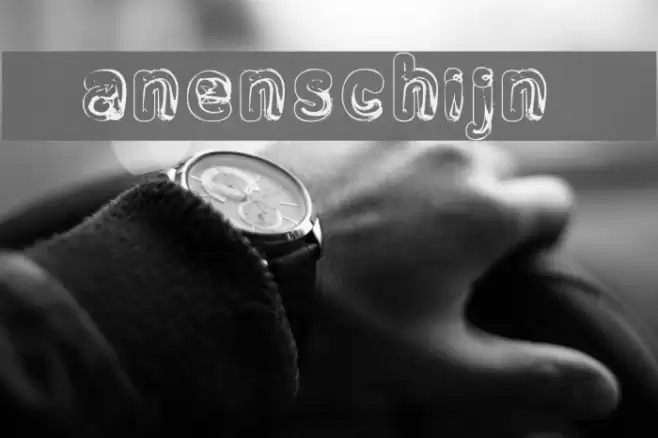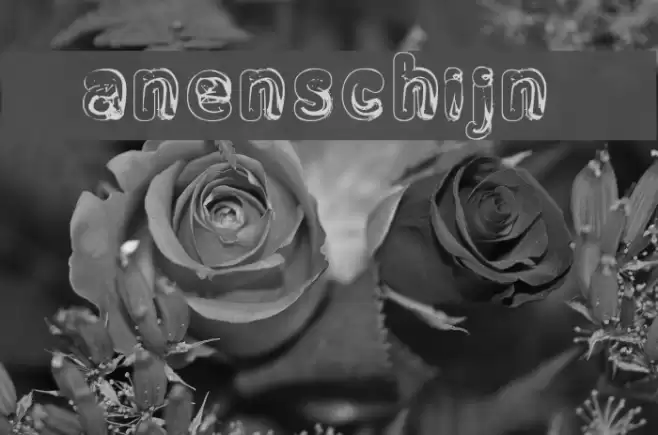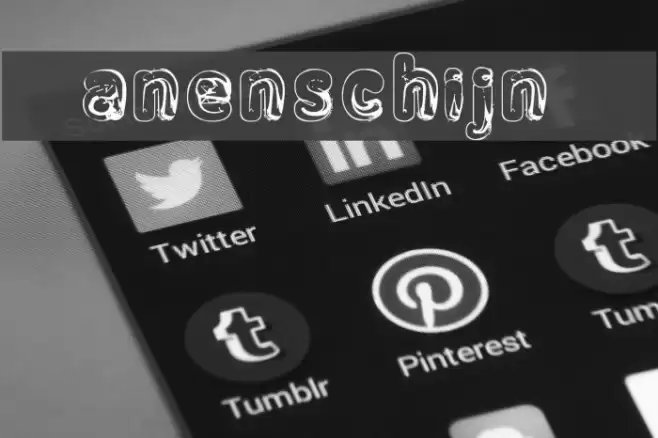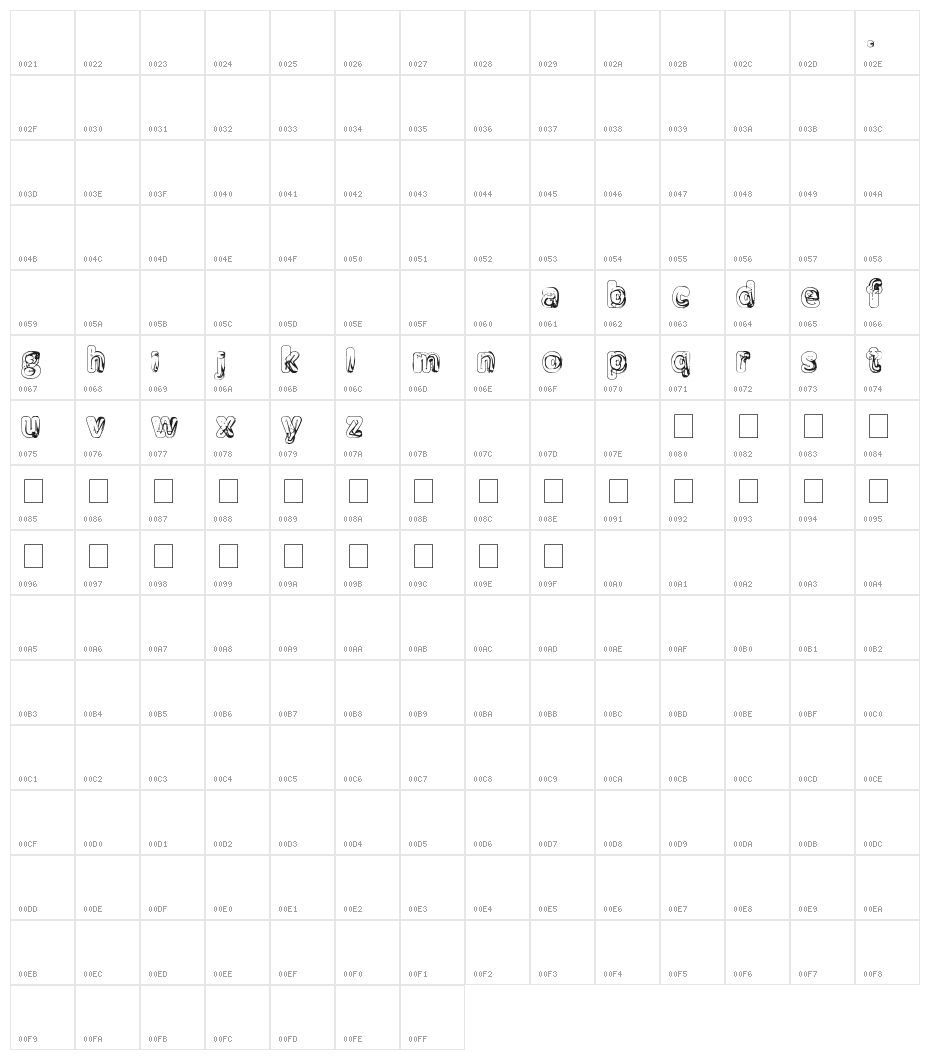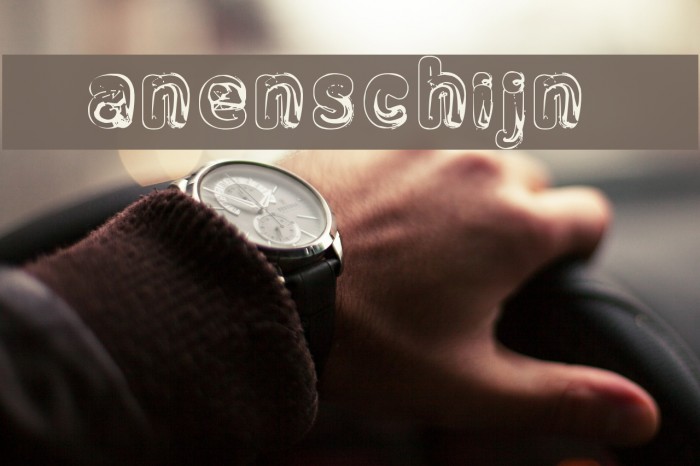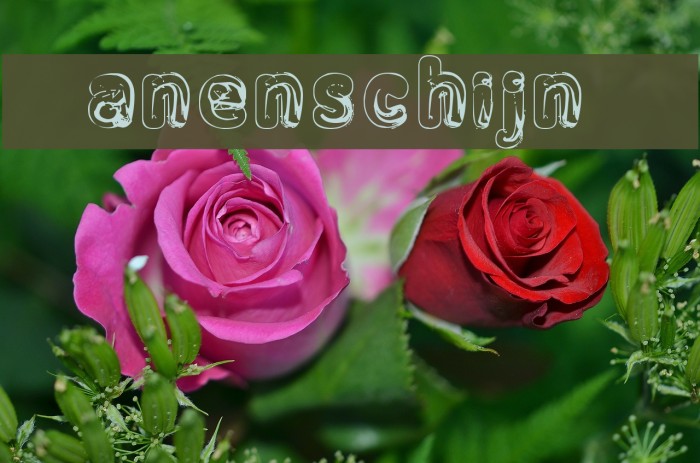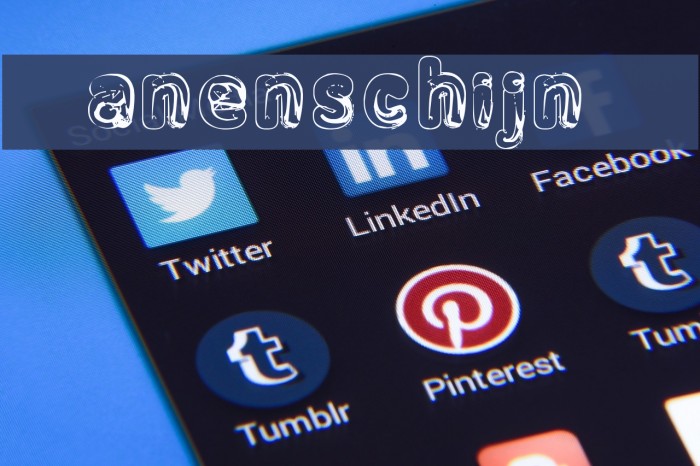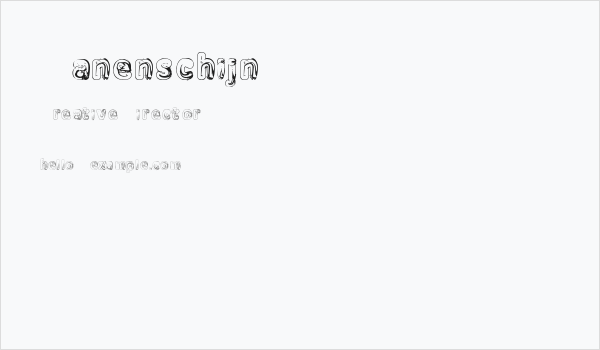
This font features a playful and artistic design with a unique grunge effect. Each character is outlined with a bold, black stroke, while the interior is filled with abstract, ink-like splatters and textures. The overall appearance is dynamic and eye-catching, making it ideal for creative projects. The lowercase letters are rounded and maintain a consistent height, contributing to a cohesive look. The font's irregular patterns and bold outlines give it a distinctive, handcrafted feel that stands out in any design.
A bold, grunge-style font with ink-like textures and playful outlines from Uncategorized fonts.
- Proposed Projects: Perfect for album covers, posters, street art designs, and creative branding projects.
- Use Case: Logos, Headlines, Artistic projects